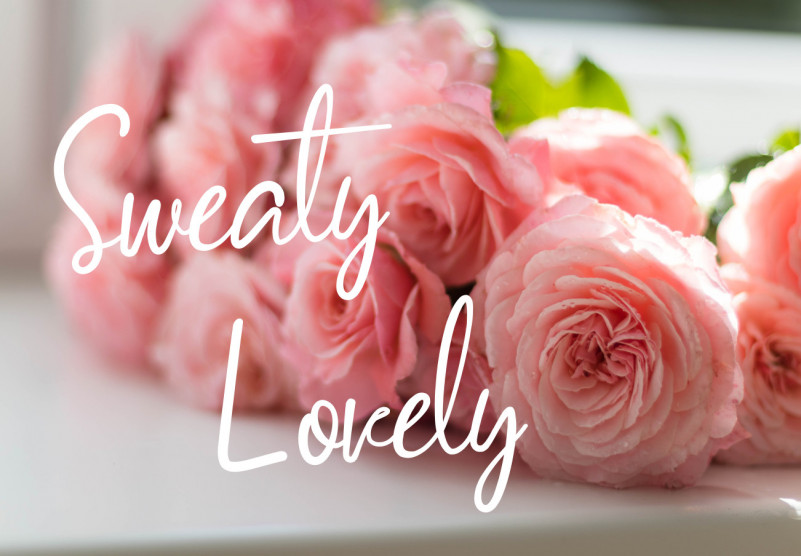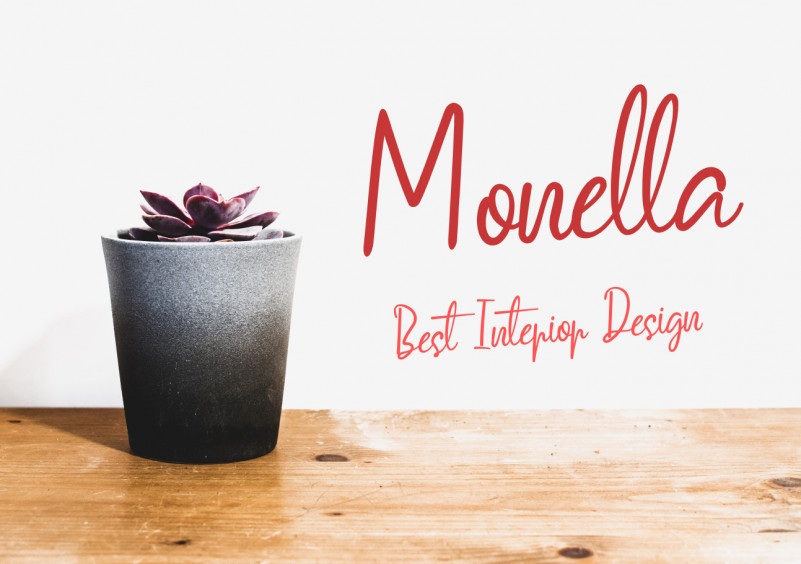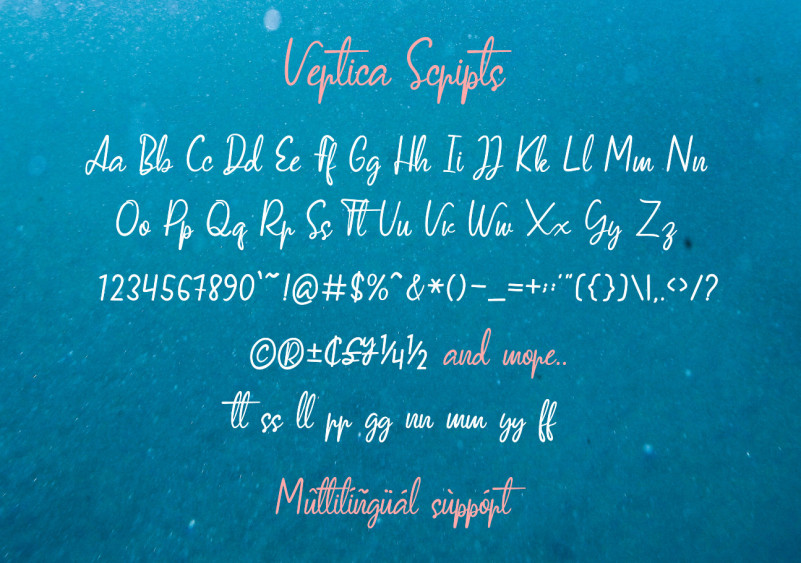
Vertica Script Font is a clean, elegant, beautiful and simple font it can be incorporated into many designs including quotes text, book cover, logos, wedding invitations, posters and many more.
- Add Vertica Scripts 2
This is a nice-looking font! But as a designer, I won’t use it because of the ‘r’ – it is confusing and looks way more like a ‘p’ than an ‘r’. Clients will complain. Users will be confused.